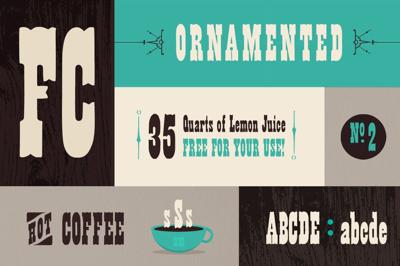
Wood Heinz No. 2 Free Download
Wood Heinz No. 2 Font Free Download
Wood Heinz No. 2 Font is perfect for vintage poster designs, retro advertising campaigns, Western-themed branding, antique shop signage, historical museum displays, old-fashioned barbershop logos, vintage circus materials, and nostalgic marketing campaigns that celebrate classic American typography and craftsmanship heritage.
Wood Heinz No. 2 Font is exciting because it authentically captures the bold spirit of traditional woodblock typography with its distinctive, hand-carved character that evokes the golden age of American advertising and poster design. The font's rustic charm and historical authenticity create an immediate connection to craftsmanship traditions and vintage storytelling that resonates powerfully with modern audiences.
The Wood Heinz No. 2 Font family includes heritage-inspired variations: Regular, Bold, Condensed, Extended, and Distressed versions. Each style maintains the font's signature woodblock character while offering different levels of visual impact and historical authenticity, allowing designers to create layered compositions that honor traditional printing techniques and vintage design aesthetics.
This distinctive typeface brings authentic vintage character and historical charm to every design application. Whether you're creating retro brand identities, heritage tourism materials, or nostalgic advertising campaigns, Wood Heinz No. 2 Font Free Download delivers unmatched authenticity and old-world craftsmanship that transports audiences to simpler times filled with genuine artistry. The font's carefully preserved letterforms feature the irregular beauty and textural richness that only traditional woodblock carving can achieve. Designers appreciate its ability to convey heritage, authenticity, and timeless American values across various applications from packaging to digital media. The comprehensive character set includes period-appropriate punctuation and decorative elements that enhance the vintage aesthetic. With its historical significance and artisanal appeal, Wood Heinz No. 2 Font transforms any project into a celebration of traditional craftsmanship and vintage Americana, making it the perfect choice for brands and designs that honor the past while creating lasting connections with audiences who value authenticity and heritage.